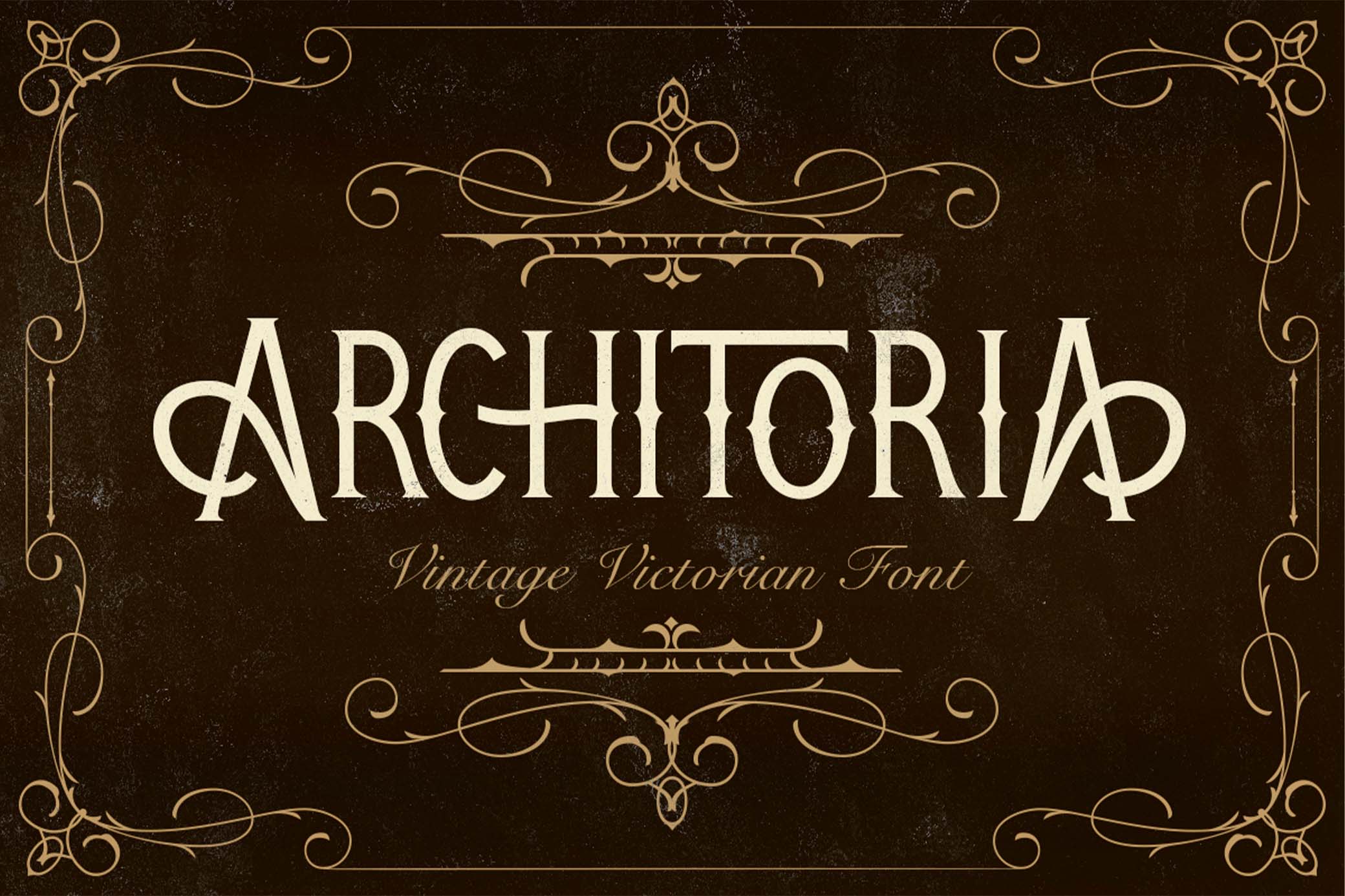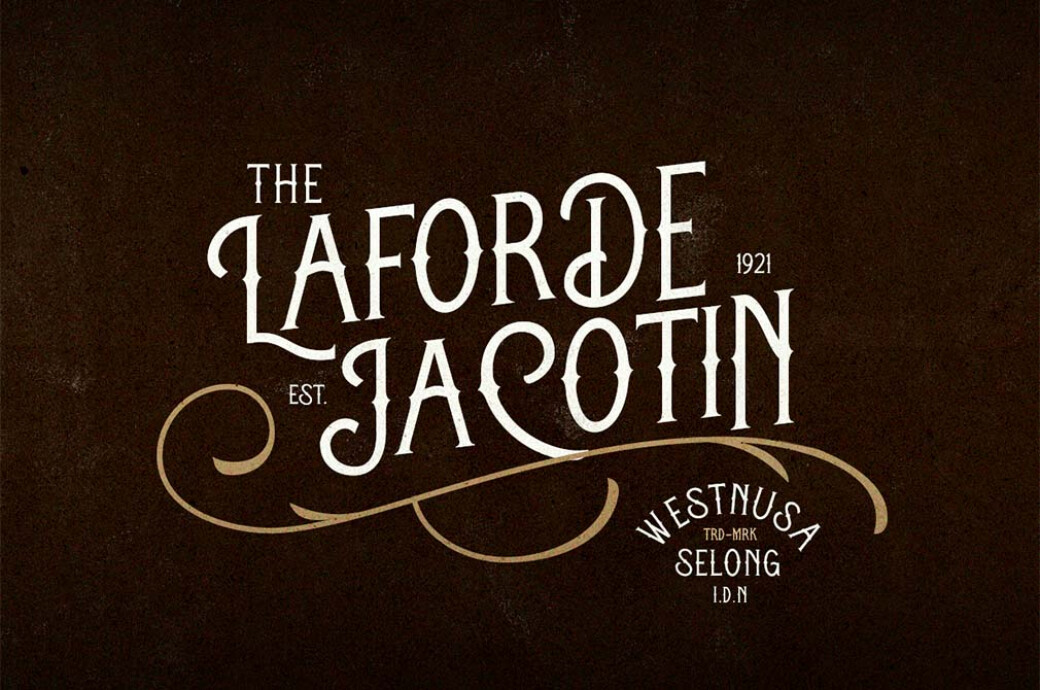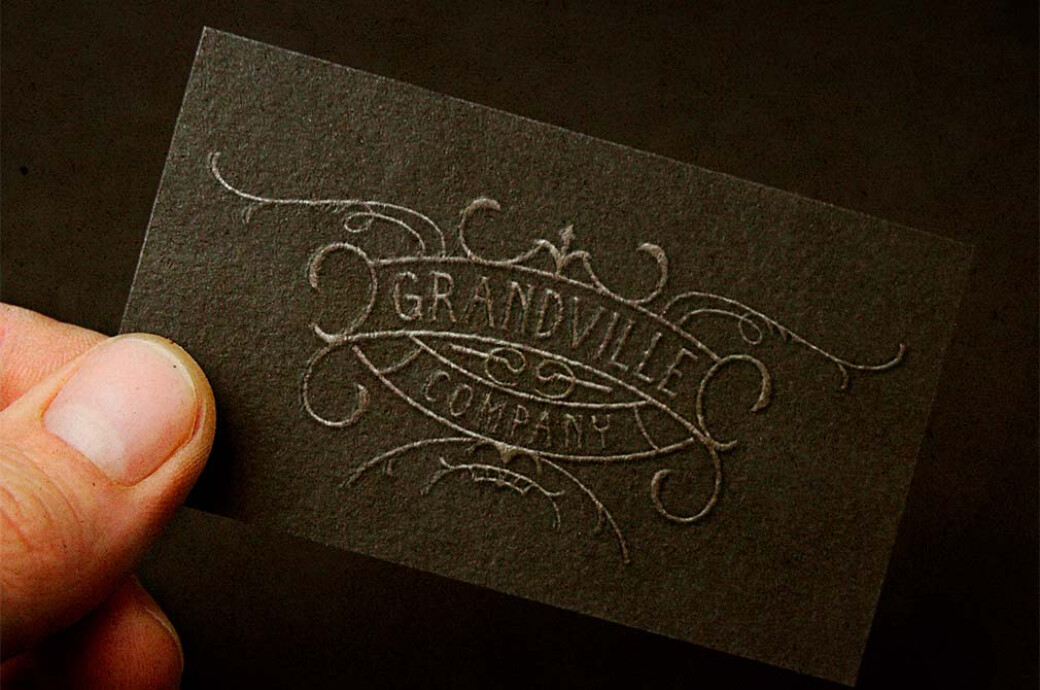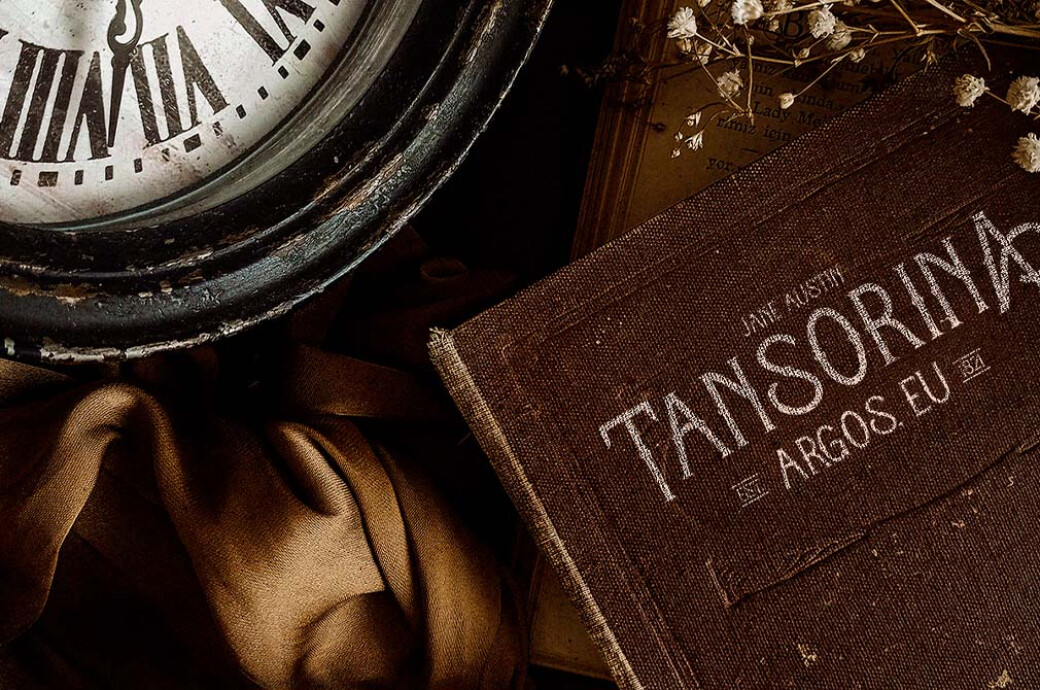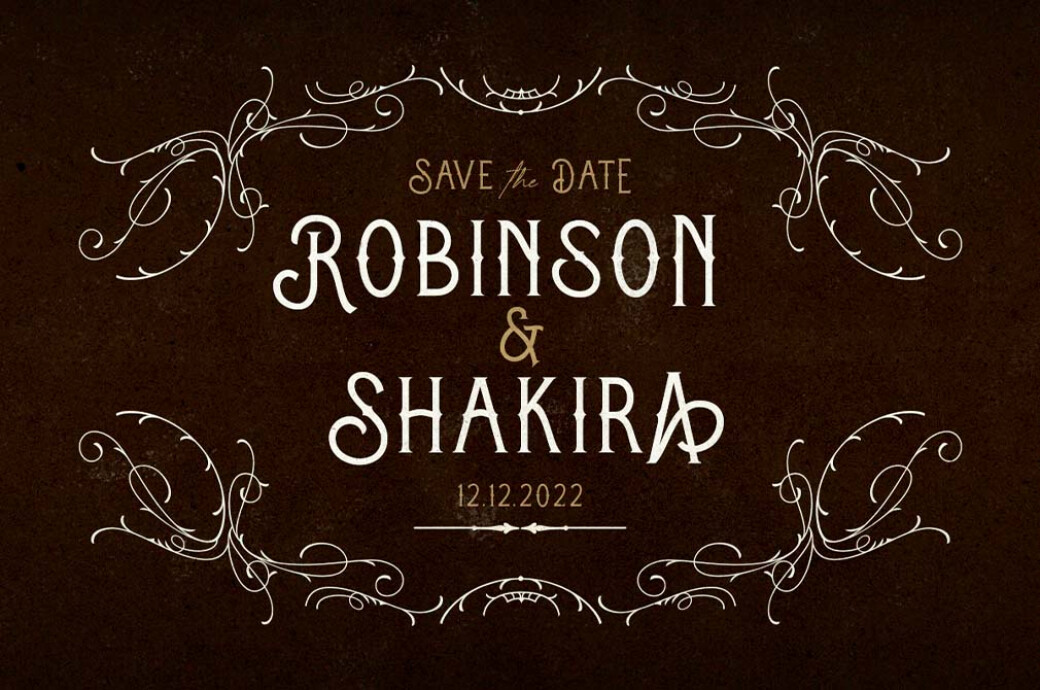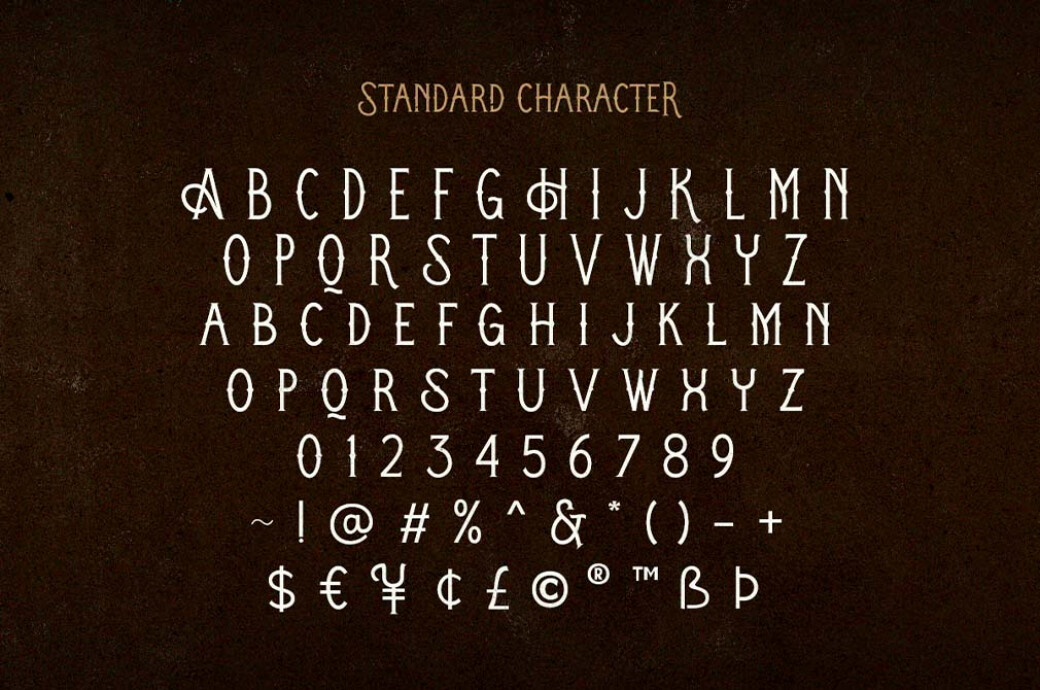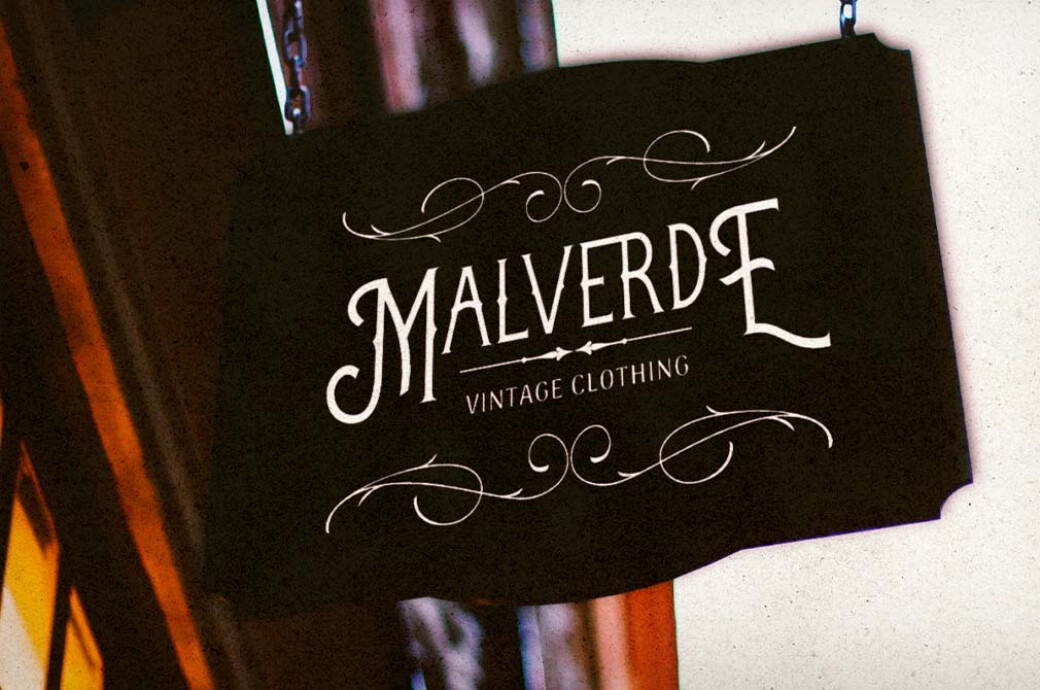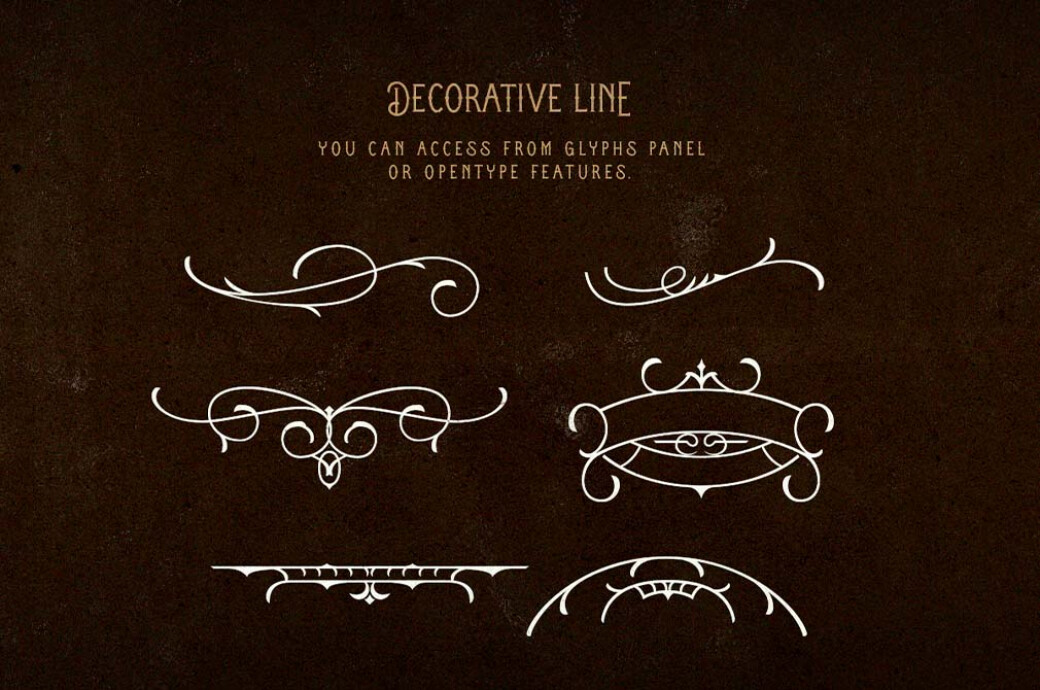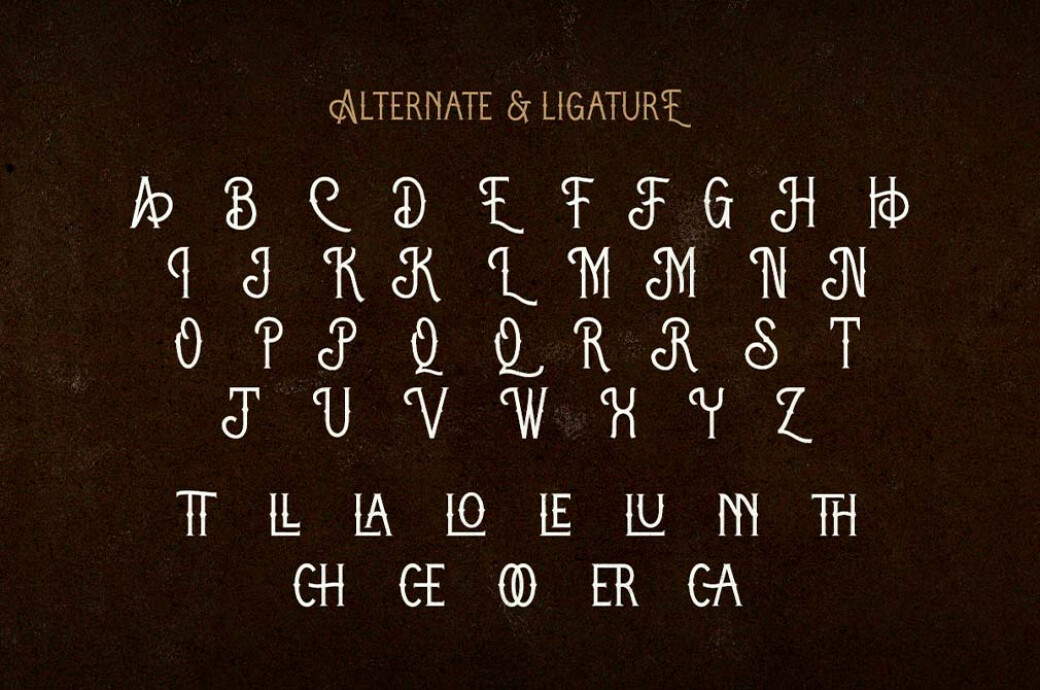
Architoria — Vintage Victorian Font
Need a touch of exquisite vintage look for your ideas? Meet Architoria — the display font that got it all. It will help you to transform your poster, logo, or branding efforts into a Victorian masterpiece.
The font file provides the standard set of glyphs both upper and lower case, numerals, punctuation marks, as well as stylistic alternates and ligatures to unlock all the possibilities typeface may offer, including multi-language feature. But that's not all! This font also comes with 6 decorative lines that you can access from Opentype features or the glyphs panel in your software of choice.